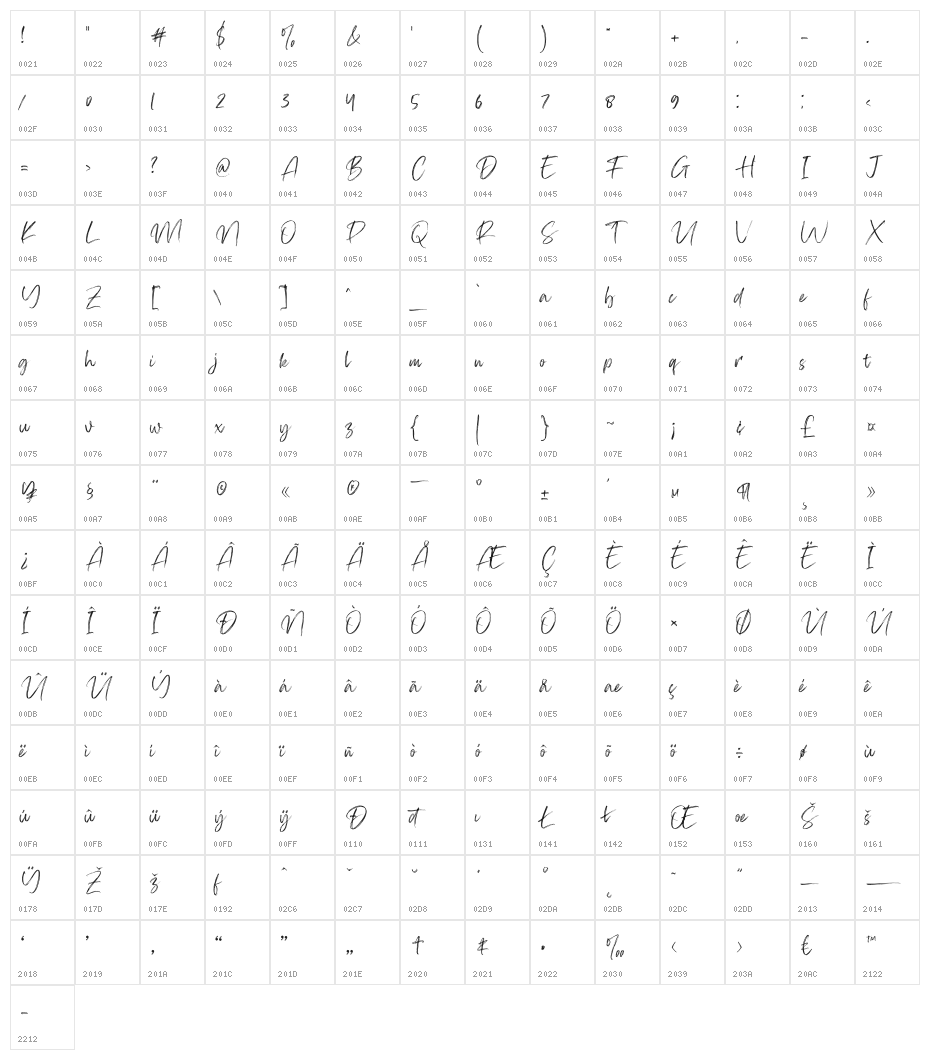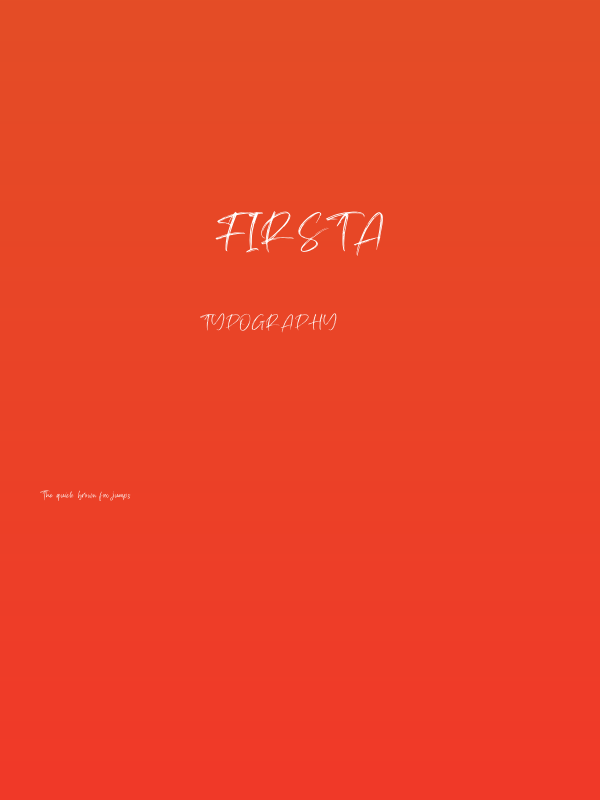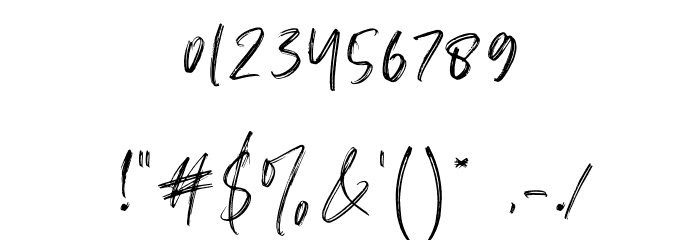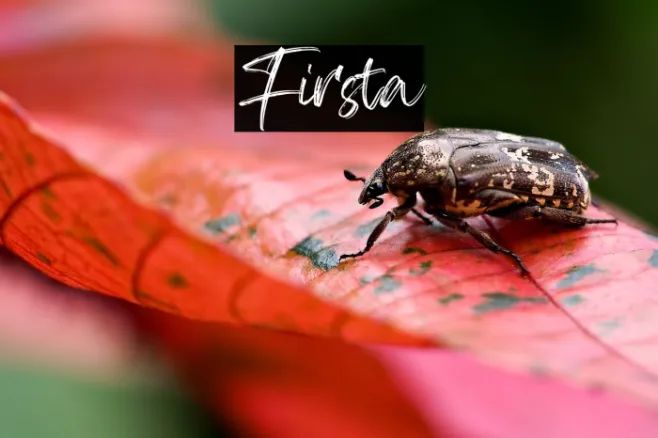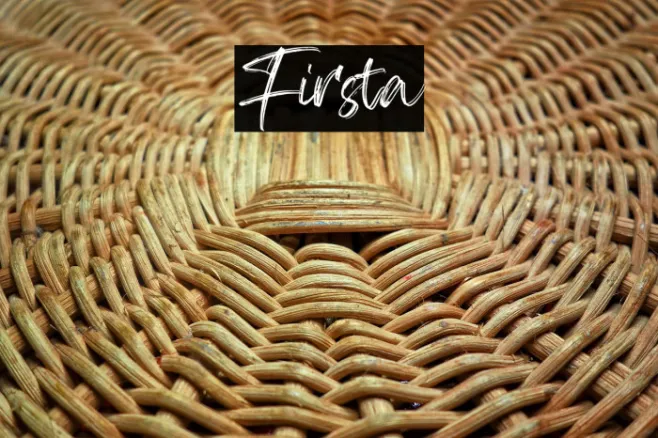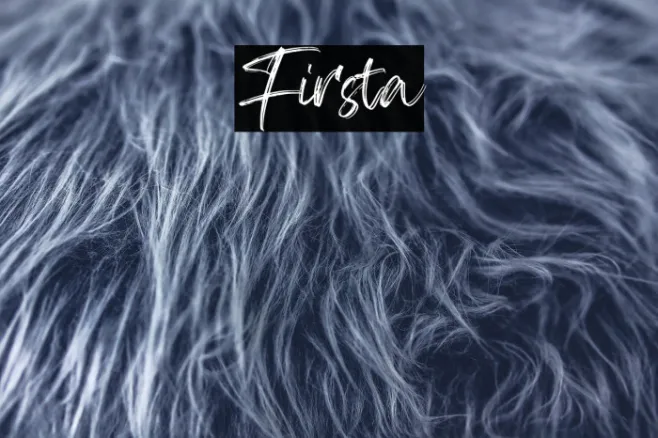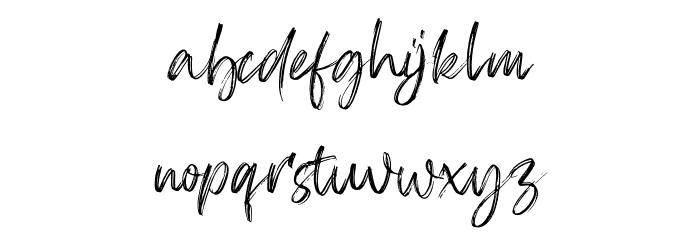
Firsta Font
Firsta Description
This font exudes a dynamic and expressive handwritten style, characterized by its fluid and organic strokes. The letters are crafted with a natural flow, giving a sense of movement and energy. The uppercase letters are bold and slightly elongated, while the lowercase letters maintain a consistent rhythm with occasional flourishes. The numbers and special characters follow the same lively aesthetic, making the font versatile for various creative applications. Its unique style is perfect for projects that require a personal touch or artistic flair.
| Proposed Projects | Ideal for greeting cards, invitations, branding, social media graphics, and artistic projects. |